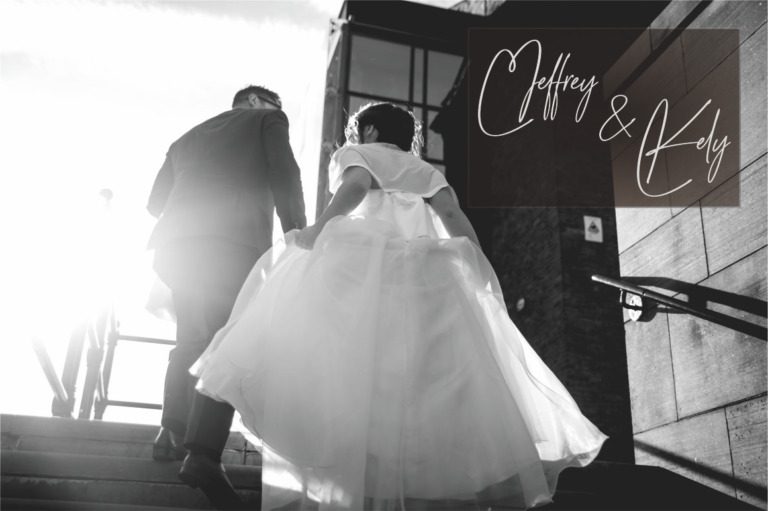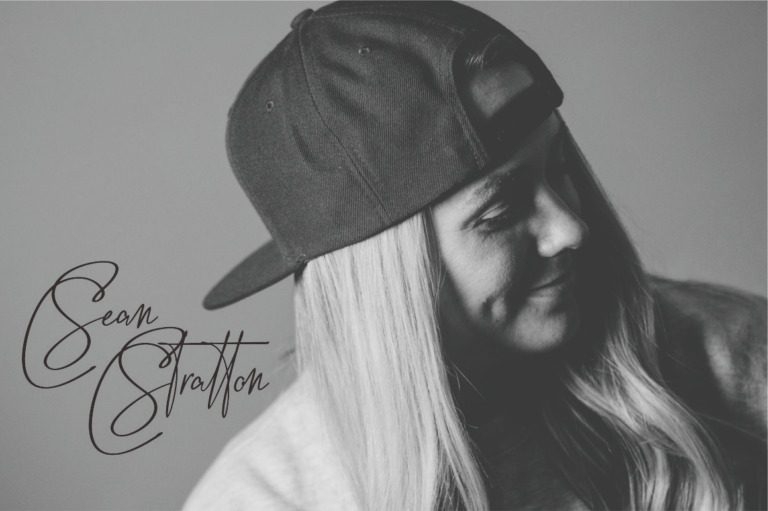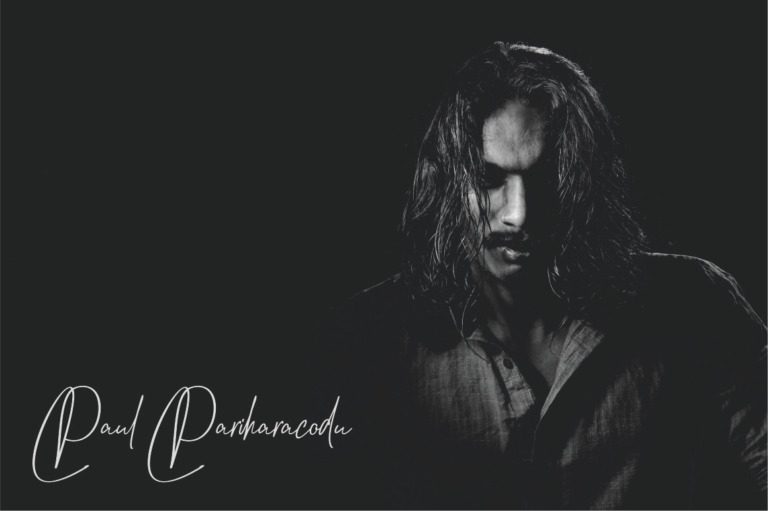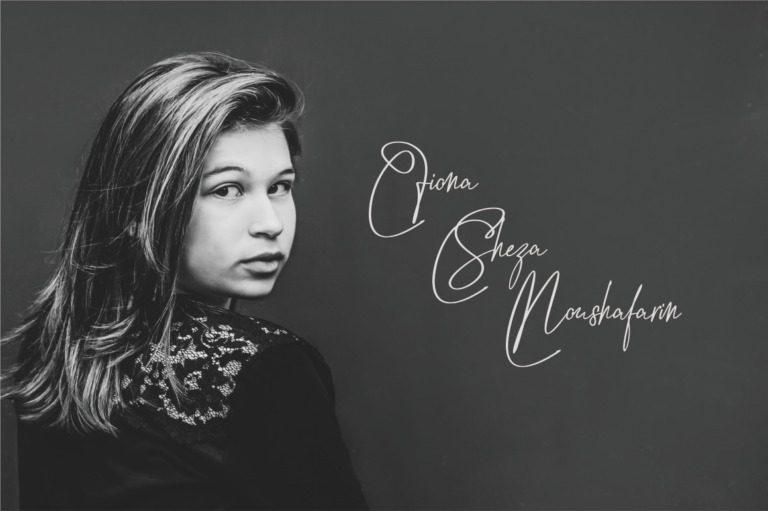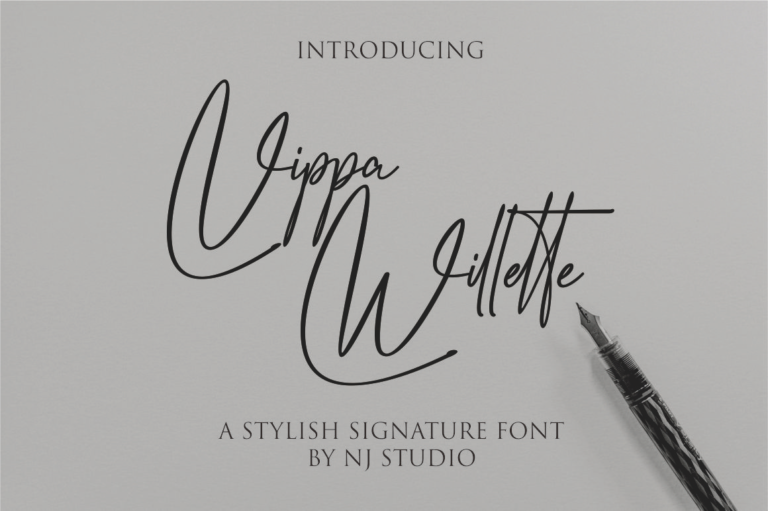
Vippa Willette Font
Vippa Willette is a stylish and elegant signature font that adds a touch of sophistication to any design. Its flowing curves and delicate strokes create a sense of grace and beauty. Perfect for wedding invitations, greeting cards, branding materials, and more, Vippa Willette is ideal for adding a touch of personal flair to your projects.